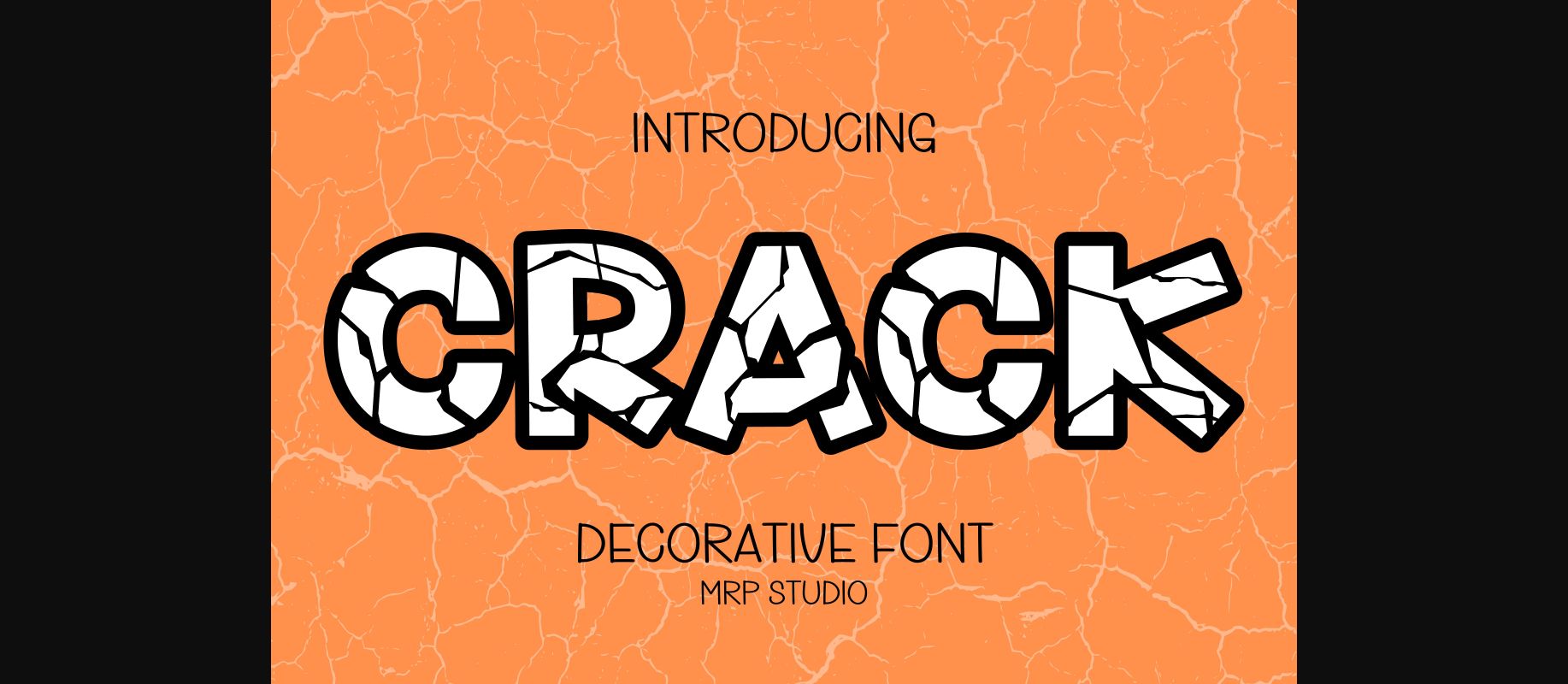
About Crack Font
Crack is designed in a playful and friendly decorative font style. Whatever the topic, this font will be a wonderful asset to your font library, as it has the potential to enhance any creation.